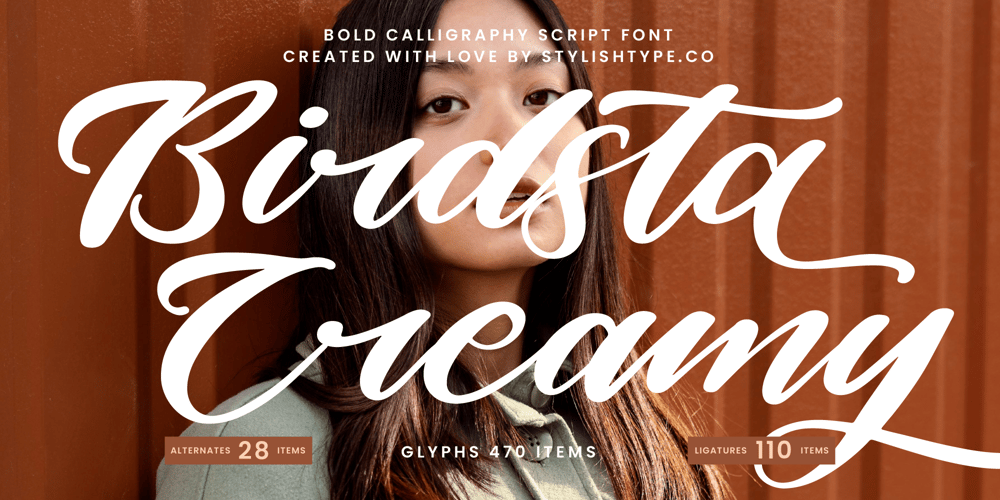
Birdsta Creamy Font Family was designed by Heru Utama Putra and published by Stylishtype Studio. Birdsta Creamy contains 2 styles and family package options. Birdsta Creamy – Bold Calligraphy Script Font , from Stylishtype, Suitable for any projects such as: logos, branding projects, homeware designs, product packaging, mugs, quotes, posters, shopping bags, t-shirts, book covers, name card, invitation cards, greeting cards, label, photography, watermark, special events, and all your other luxury and beautiful projects that need a Luxury Script taste.